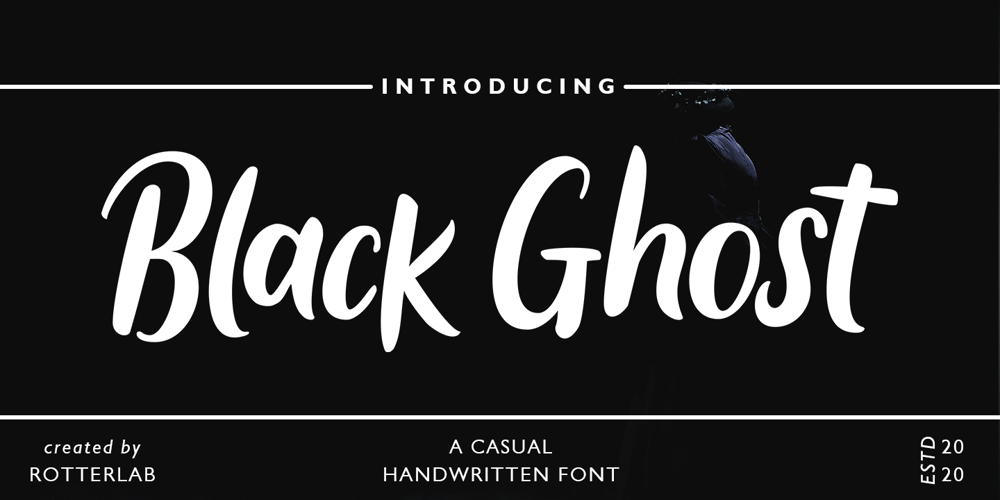
Black Ghost
Black Ghost font
Black Ghost Font Family was designed by Sidiq Fahmi and published by Rotterlab Studio. Black Ghost contains 1 styles and family package options. Black Ghost is a classy script font. Combined with that textured handwritten brush will make your design project even stronger. Made for professional project branding. This works best for logos, branding, and of course quotes. Each letter has a unique and beautiful touch.Features:PUA EncodedMultilingual SupportNumbers and PunctuationPlease send us a message if you have any questions or concerns, Thank you for downloading premium fonts from Rotterlab Studio